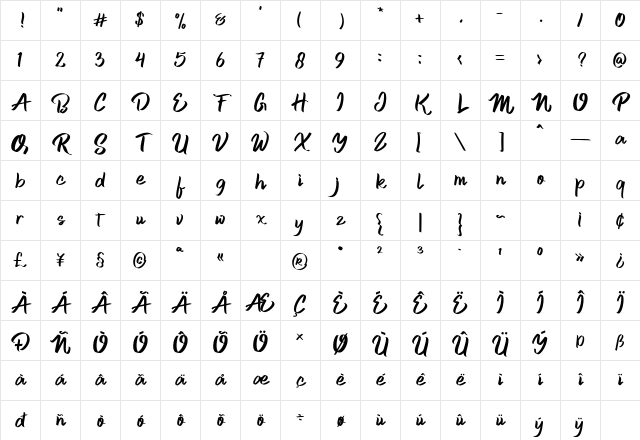
Skid Rock Regular
Foundry: Hans Co
Designer: Burhan Afif
Complete Skid Rock Regular glyph index. Displaying only characters natively supported by Skid Rock Regular font.
Design Context for Skid Rock
Skid Rock is a composed and adaptable typeface that performs quietly and consistently across a wide range of design contexts.
Who designed the Skid Rock Regular font?